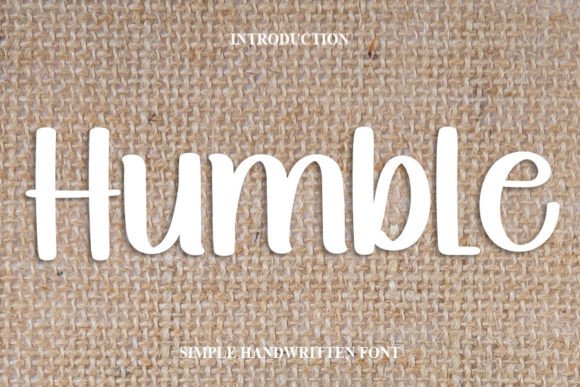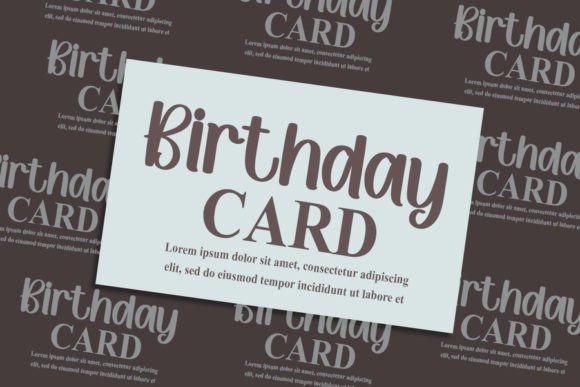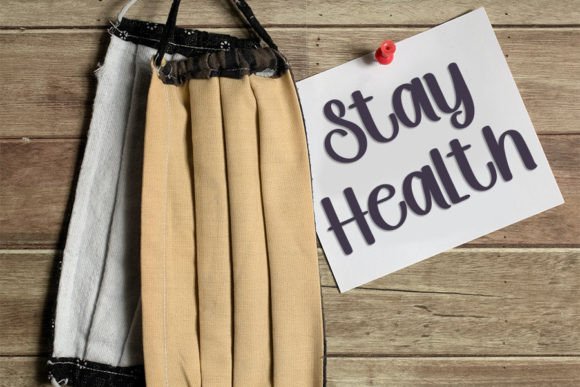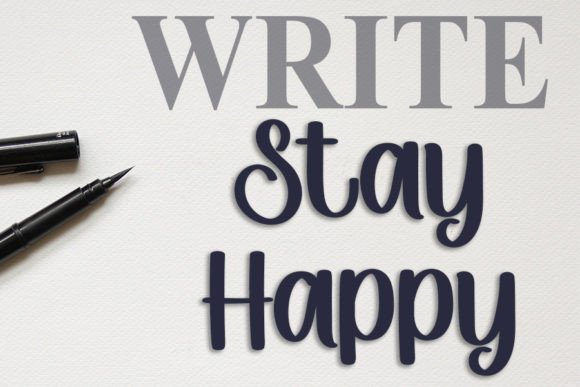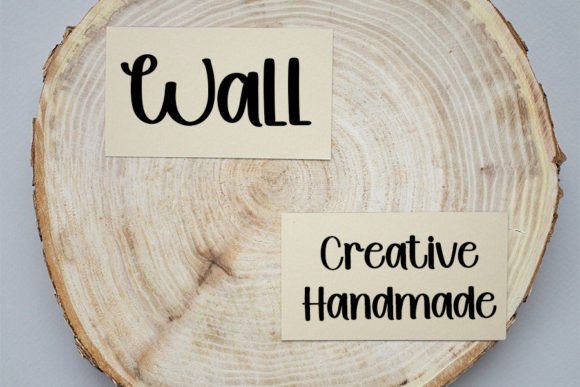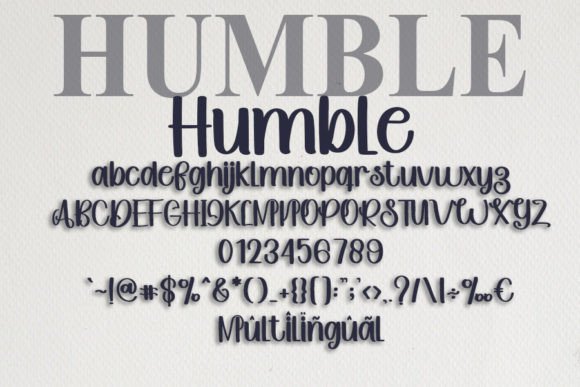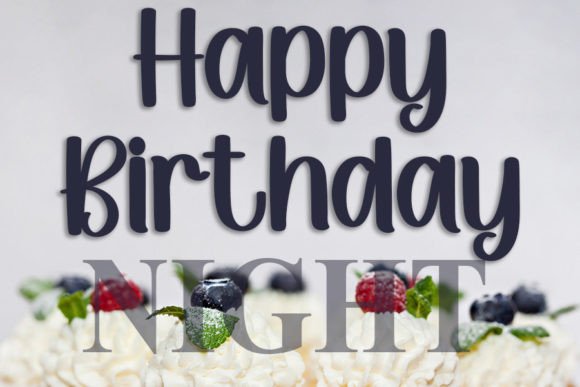
Humble Font
About Humble Font
“Humble is a beautiful and refined handwritten font that effortlessly blends class and modernity. Its versatile and elegant design makes it a perfect choice for logos, branding, invitations, stationery, wedding designs, social media posts, and much more. With PUA encoding, accessing the amazing glyphs and ligatures of Humble is easy and convenient!
The beauty of Humble lies in its classy and modern handwritten style. The font’s refined strokes and graceful curves contribute to a sophisticated aesthetic that works seamlessly across various design applications. Whether you’re creating a logo or designing wedding invitations, Humble adds a touch of elegance to your projects.
The PUA encoding of Humble enhances its functionality by allowing you to access a wide range of glyphs and ligatures effortlessly. This feature provides flexibility in customizing your text, ensuring that you can easily incorporate unique characters and ligatures to enhance the visual appeal of your designs.
Consider using Humble to bring a touch of refinement to your branding materials, invitations, or any project that requires a blend of modernity and class. Its versatility makes it suitable for both digital and print applications, allowing you to create visually stunning and cohesive designs.
In summary, Humble is not just a font; it’s a design asset that brings beauty, class, and modern sophistication to your projects. With PUA encoding, accessing its amazing glyphs and ligatures is a breeze, offering you the flexibility to create customized and visually appealing designs effortlessly. Integrate Humble into your creative toolkit and let its elegance elevate your typographic expressions.”